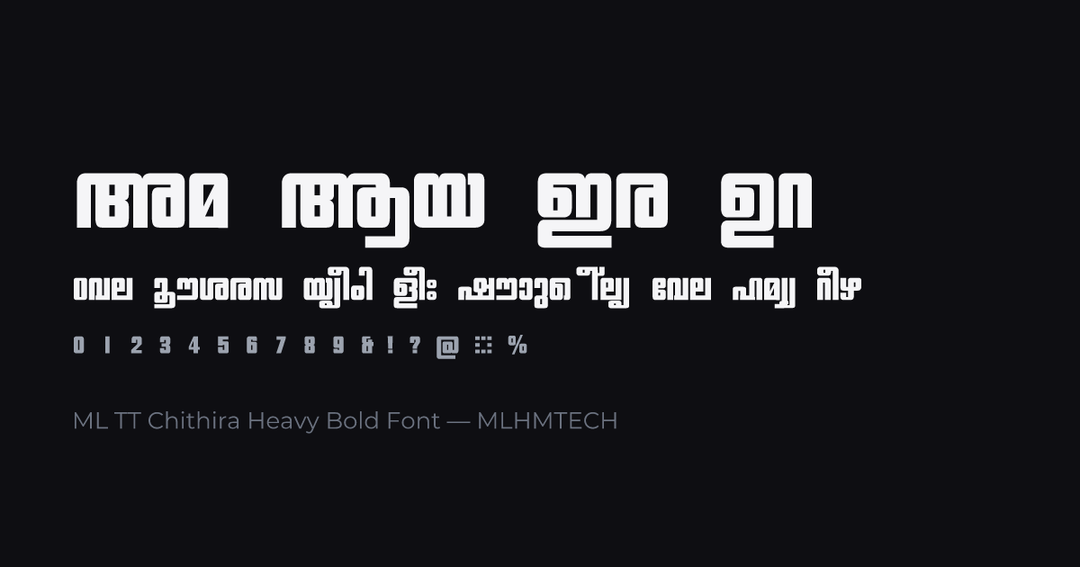
ML TT Chithira Heavy Bold Font
A bold, heavy Malayalam display font that adds strong visual impact to titles and headlines. Ideal for video editing, posters, and branding.
ML TT Chithira Heavy Bold is a high-contrast, heavy-weight font designed to make a statement. Its strong strokes and clear letterforms ensure readability even at large sizes, making it perfect for titles, banners, and promotional materials.